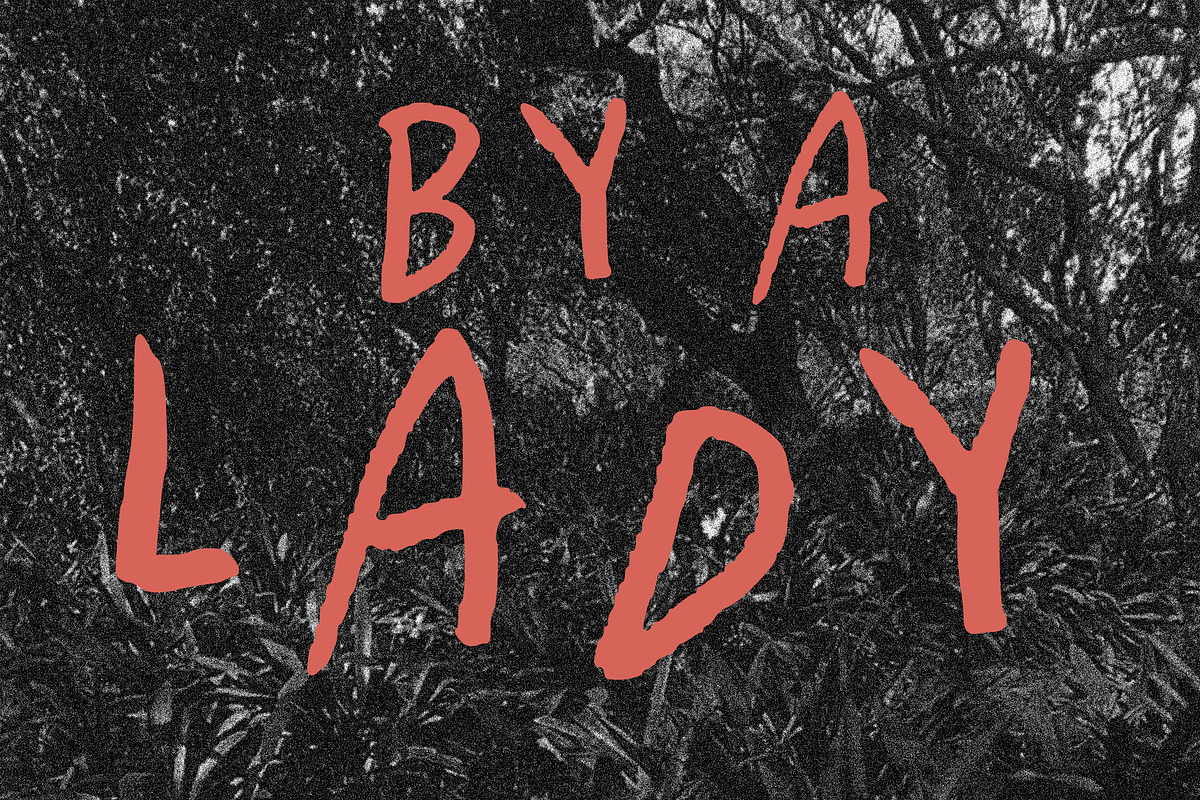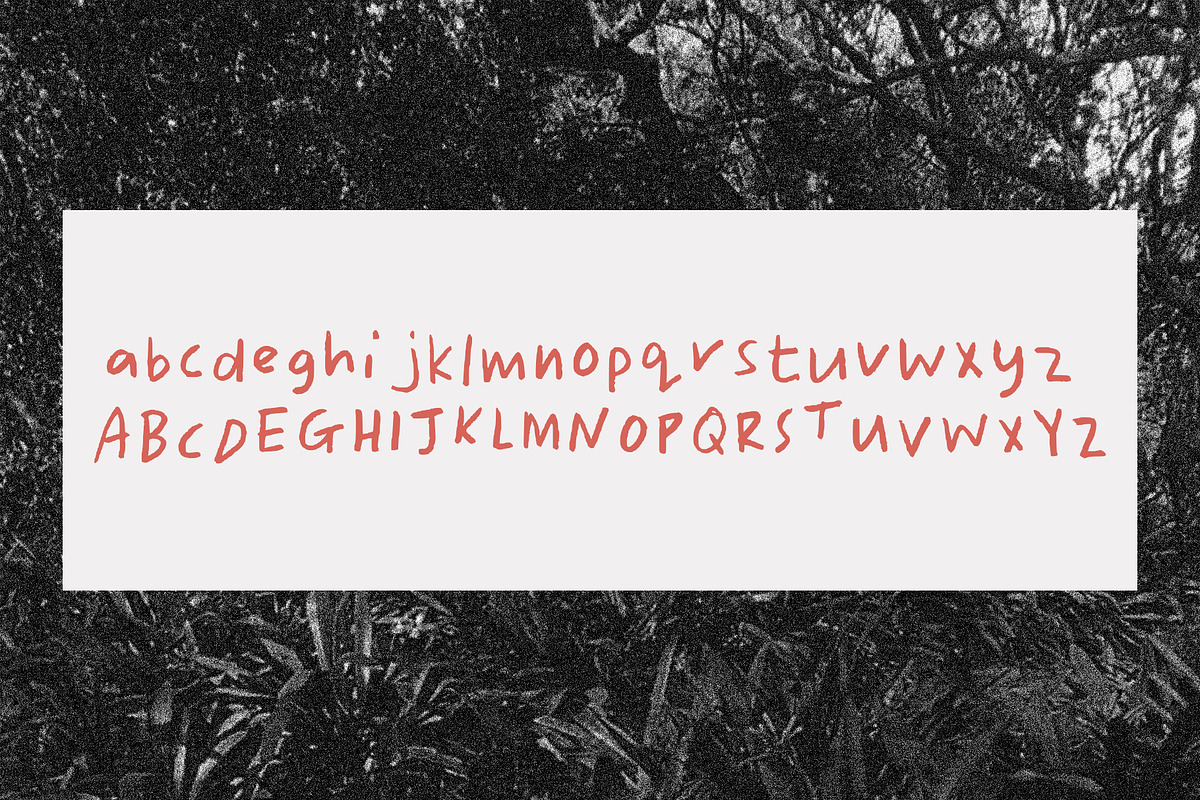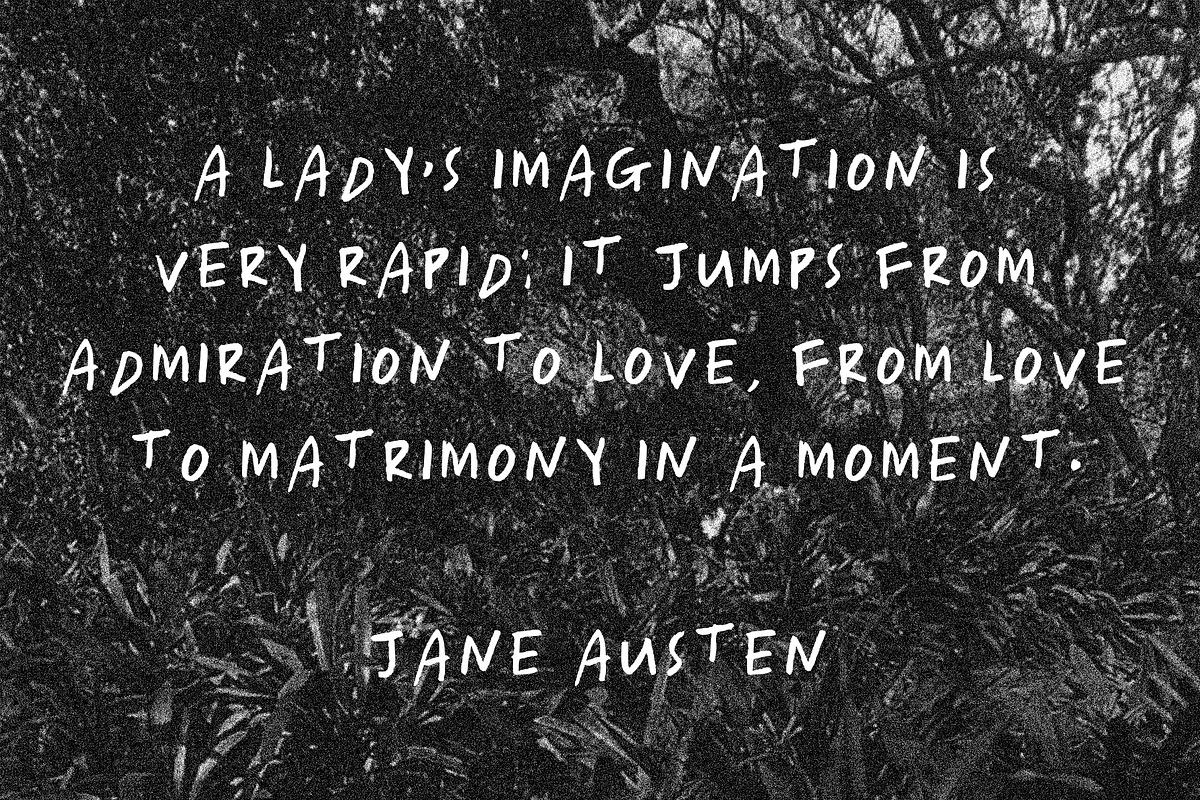
By A Lady
"By a Lady" is a captivating script font inspired by Jane Austen's handwritten manuscripts. A modern take on the quick scribbles while still exuding the timeless charm of the Regency era. Perfect for invitations and projects seeking a touch of modern elegance, this font merges historical sophistication with a modern twist, capturing the essence of Austen's refined penmanship.